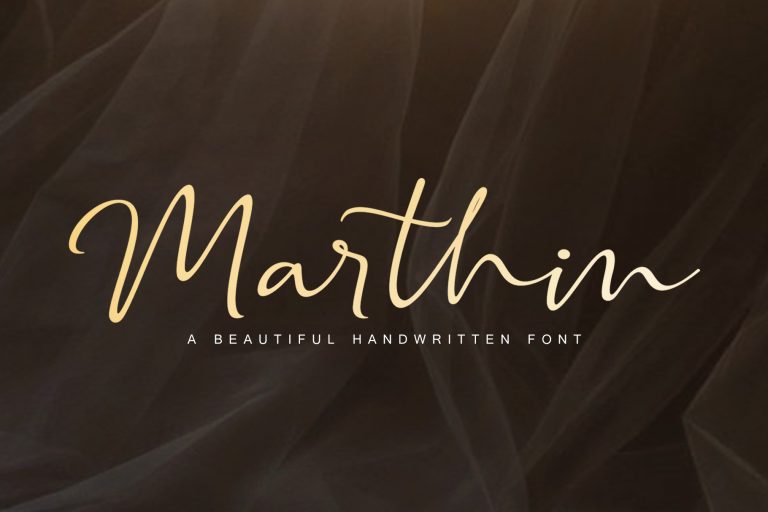
- Marthin – Clean Calligraphy Font
Marthin
Introducing Marthin Font – a new modern signature with elegant lines make this font perfect for your personal branding and any awesome project, such as : logos, invitations, stationery, wedding designs, social media posts, advertisements, product packaging, product designs, labels, photography, watermarks, special events and much more !